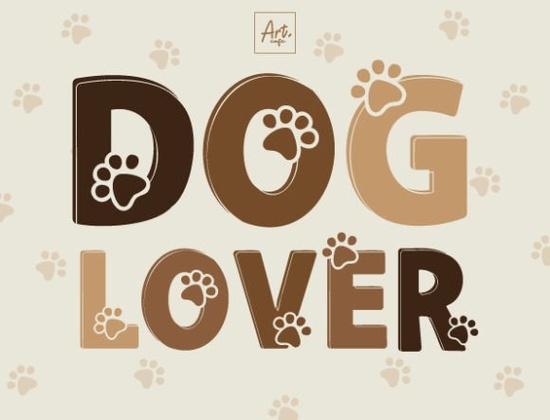
If you're looking for a friendly, bold typeface that fits dog-themed designs without feeling too childish or overly decorative, the Dog Lover Font is a solid choice. It’s designed with warmth and readability in mind especially for projects where charm matters more than formality. Whether you’re making custom pet birthday cards, printable planner stickers, or small-batch merch for a local dog rescue fundraiser, this font holds up well at medium to large sizes and pairs easily with simpler sans-serif companions.
Who actually uses this font and why?
Designers working on print-on-demand stores often choose Dog Lover Font for its clean outlines and consistent weight it scales nicely across mugs, tote bags, and vinyl decals without thin lines breaking up or filling in. Crafters appreciate how it prints clearly on Cricut and Silhouette machines, especially when layered over textured paper or burlap. Teachers and homeschool parents use it for classroom signs (“Good Dog Spot!”) or reward charts because it feels playful but still legible for early readers.
Small businesses like groomers, pet sitters, or local bakeries offering “pupcakes” find it useful for social media graphics and seasonal flyers. It doesn’t shout, but it does invite attention in a gentle, approachable way. You’ll also see it used alongside hand-drawn paw prints, bone motifs, or watercolor dog silhouettes in digital scrapbook kits.
What works well with Dog Lover Font?
This font shines when paired thoughtfully not overloaded. Since it’s bold and display-oriented, it’s best used for headings, short quotes, or single-line phrases (like “Best Dog Ever” or “Rescue Love”). Avoid long paragraphs or body text; it wasn’t built for extended reading.
Try combining it with:
- A light, neutral sans-serif (like Montserrat Light or Open Sans) for supporting text
- Simple line art think outlined dog ears, leashes, or paw pads to keep visual balance
- Warm, earthy color palettes: terracotta, oatmeal, sage, or soft denim blue
- Subtle textures like faint linen or handmade paper overlays for printed projects
It also plays nicely with other Creative Fabrica fonts that share its friendly tone, like Happy Paws Font or Paw Print Script. Just avoid stacking multiple bold decorative fonts they compete instead of complement.
Where do people commonly run into issues?
A few practical notes: while Dog Lover Font supports the full English character set including punctuation, numbers, and basic accented letters it doesn’t include extended Latin characters (like ñ or ç), so it’s not ideal for bilingual pet shop signage unless you’re only using English copy. Also, because it’s a display font, some crafters accidentally scale it too small for iron-on transfers or embroidery files aim for at least 24 pt for clear cutting or printing on fabric.
How does it compare to similar options?
Unlike script fonts that mimic handwriting or ultra-thin modern fonts that fade on dark shirts Dog Lover Font sits comfortably in the middle: friendly but structured, decorative but dependable. It’s less ornate than Woofy Serif, and more legible at small sizes than many cartoon-style fonts. You’ll find it grouped with other decorative fonts for pet lovers on Creative Fabrica, but it stands out for its even spacing and open letterforms no cramped “o”s or pinched “e”s.
It’s also optimized for quick loading in design apps like Canva and Adobe Express, which helps if you’re building dozens of social posts or product mockups in a batch.
- ✅ You need a bold, cheerful display font not a body text or logo font
- ✅ Your project uses English-only text (no special diacritics or multilingual support needed)
- ✅ You’ll use it mostly for headlines, labels, stickers, or short phrases not paragraphs
- ✅ You want something that feels handmade but prints cleanly on both digital and physical surfaces
If those match your needs, Dog Lover Font is likely a straightforward, reliable pick not flashy, but consistently useful.